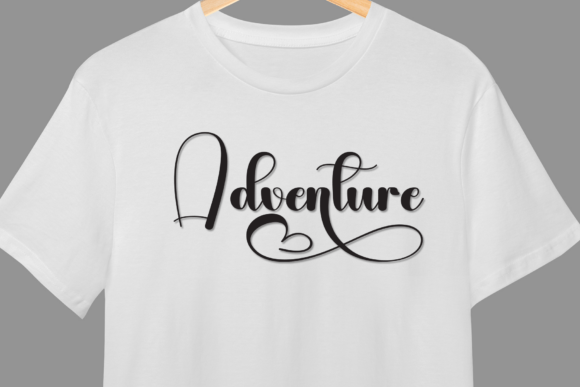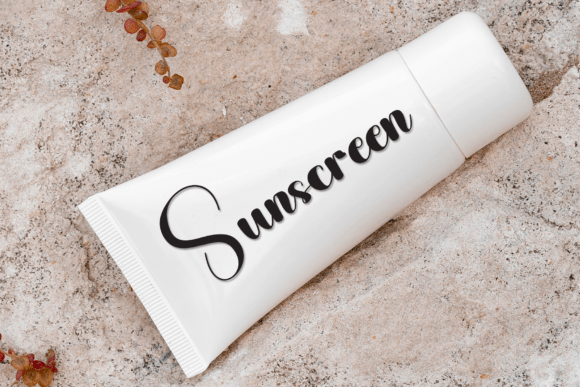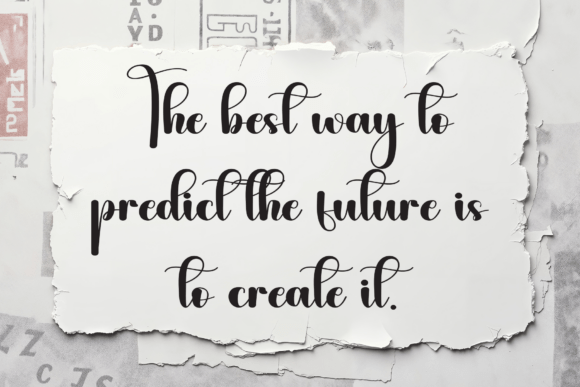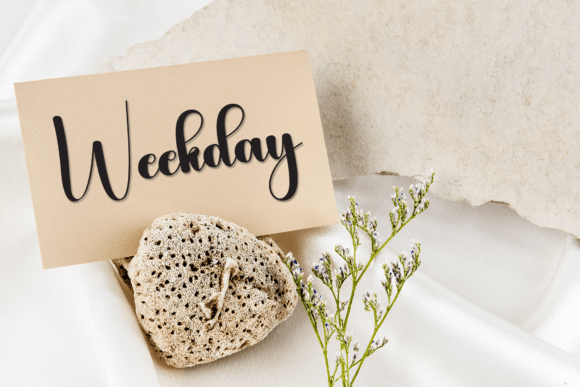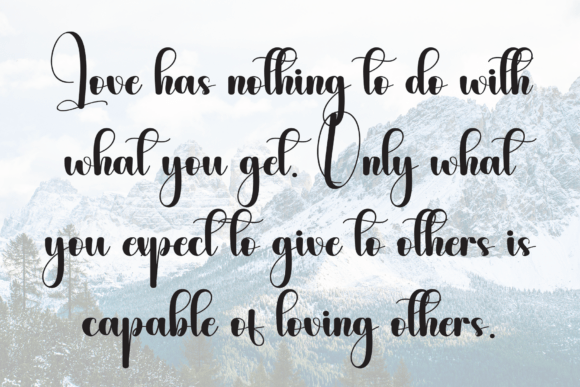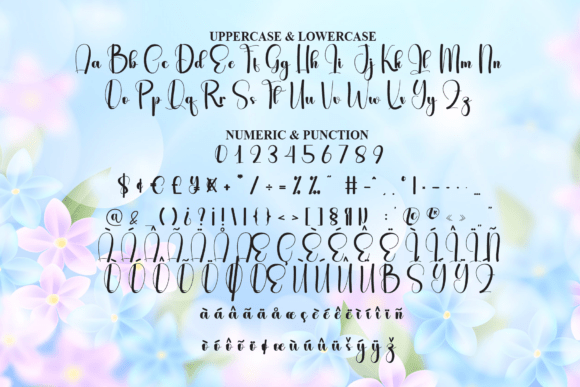
Introducing Beautiful Font: Elevate Your Designs with Our Stunning Typeface
Are you tired of using the same old fonts for your designs? Look no further! Our Beautiful Font is here to revolutionize the way you create, with a wide range of special creative products that will give you an extraordinary experience. Our latest style letters are perfect for various applications, from wall displays and wedding invitations to social media post logos, advertisements, product packaging, and more.
With our Beautiful Font, the possibilities are endless. Whether you’re a designer, crafter, or DIY enthusiast, our font is designed to help you create stunning visual content that stands out from the crowd. Here are some of the many ways you can use our font:
- Wall displays and signage
- Social media post logos and graphics
- Advertisements and marketing materials
- Product packaging and labeling
- Product designs and branding
- Photography and watermarks
- Invitations and event materials
- Stationery and paper crafts
Why Choose Our Beautiful Font?
So, what sets our Beautiful Font apart from the rest? Here are just a few reasons why designers and crafters love our font:
- Unique and stylish lettering that’s sure to impress
Tips and Tricks for Using Our Beautiful Font
To get the most out of our Beautiful Font, here are a few tips and tricks to keep in mind:
- Experiment with different font sizes and colors to add visual interest
- Pair our font with other design elements, such as images and graphics, for a unique look
- Use our font to create a consistent brand identity across multiple platforms